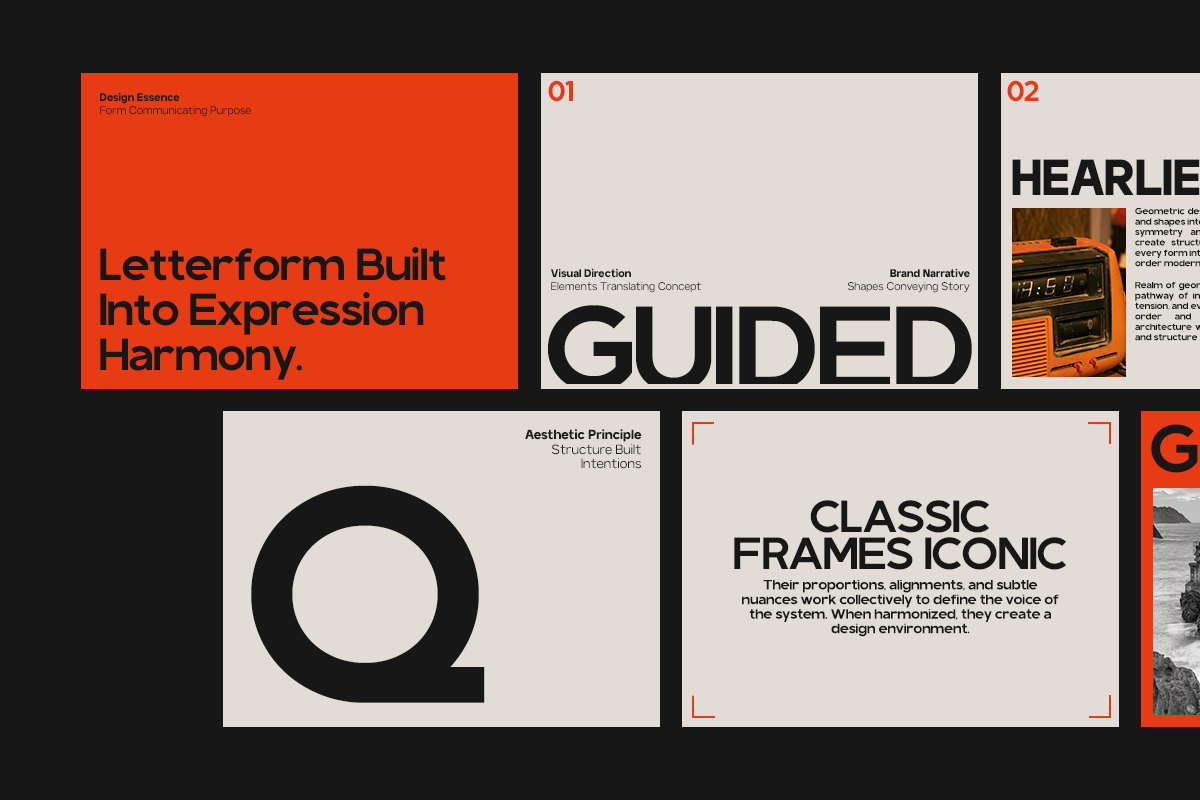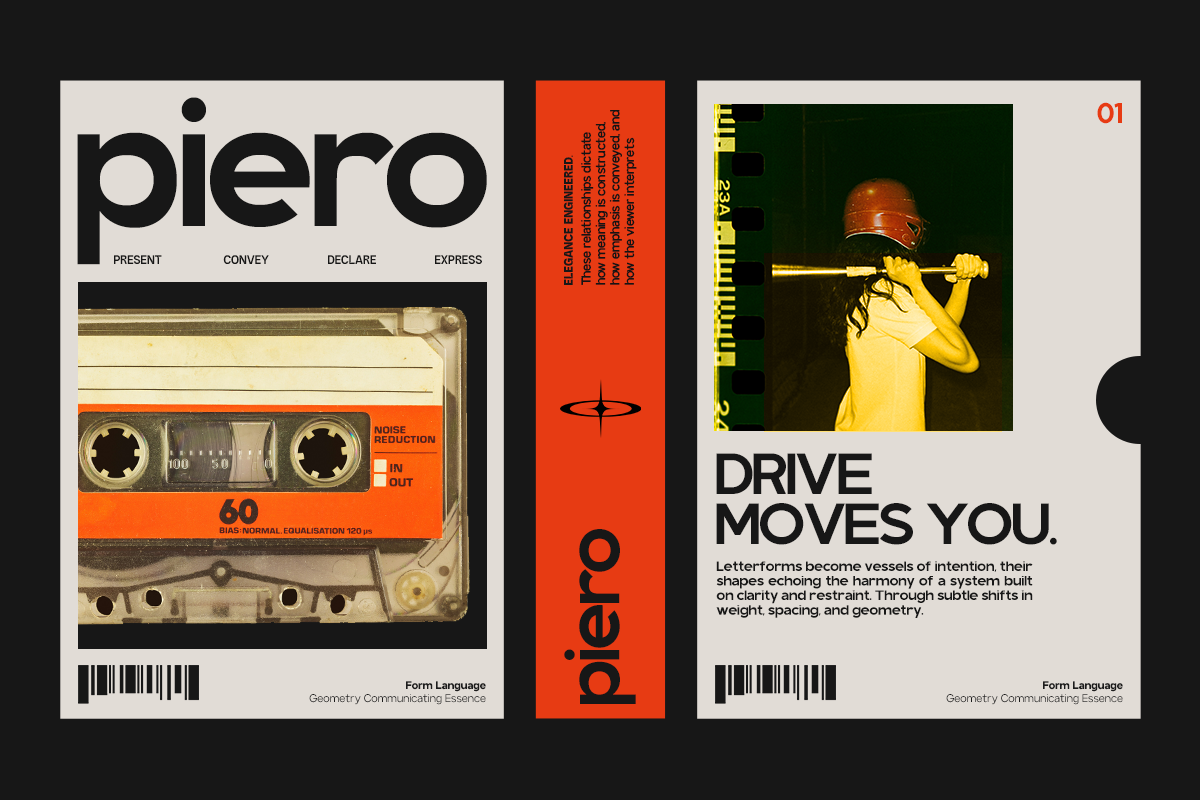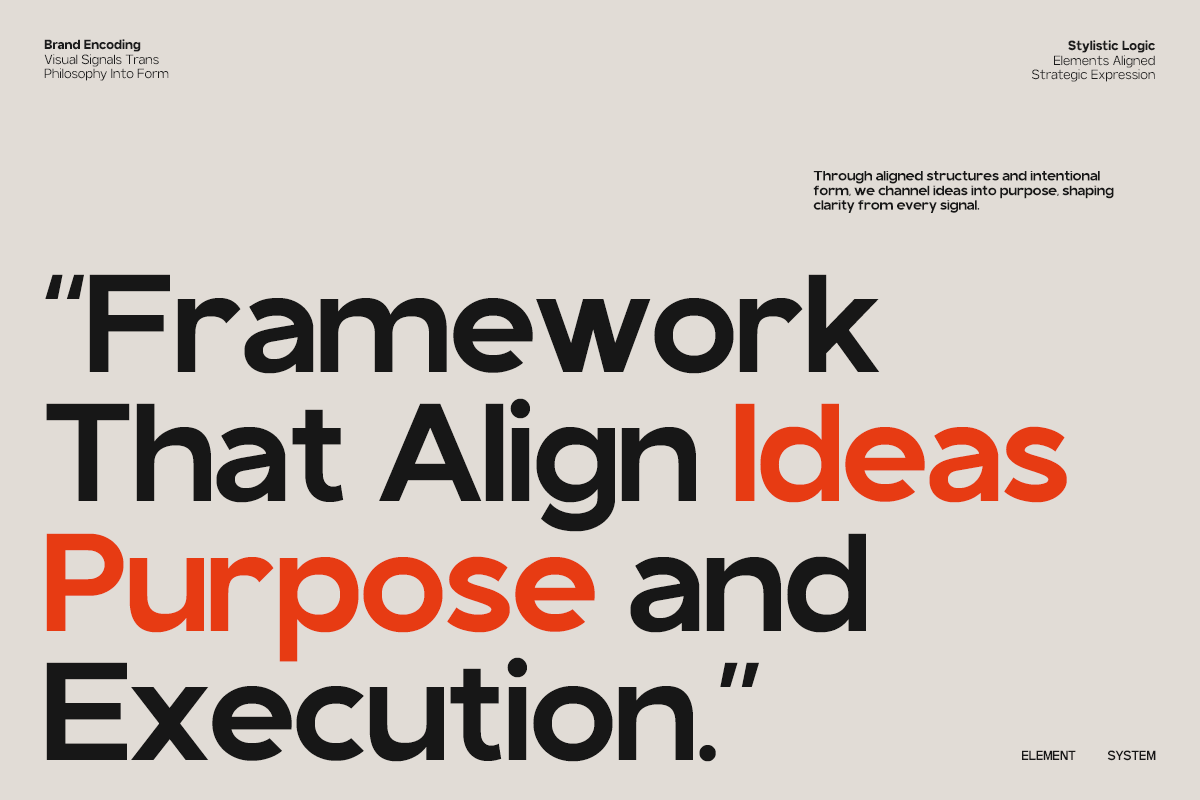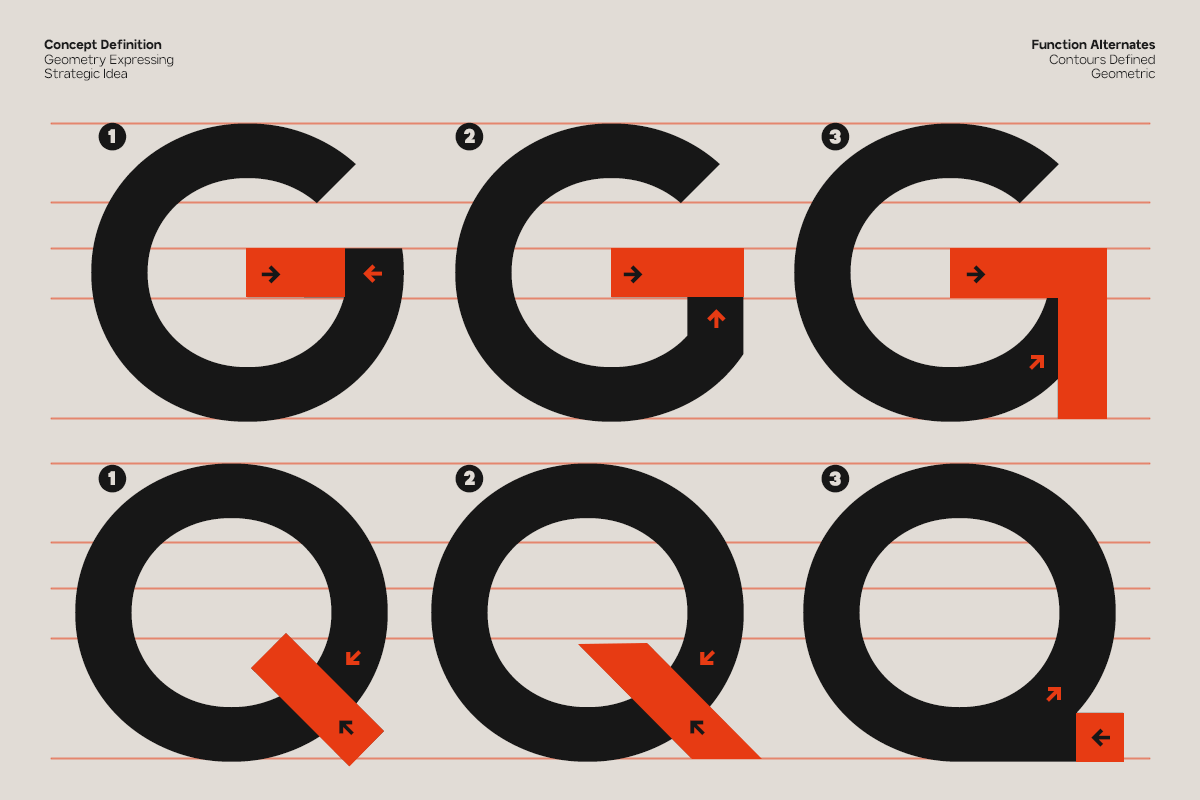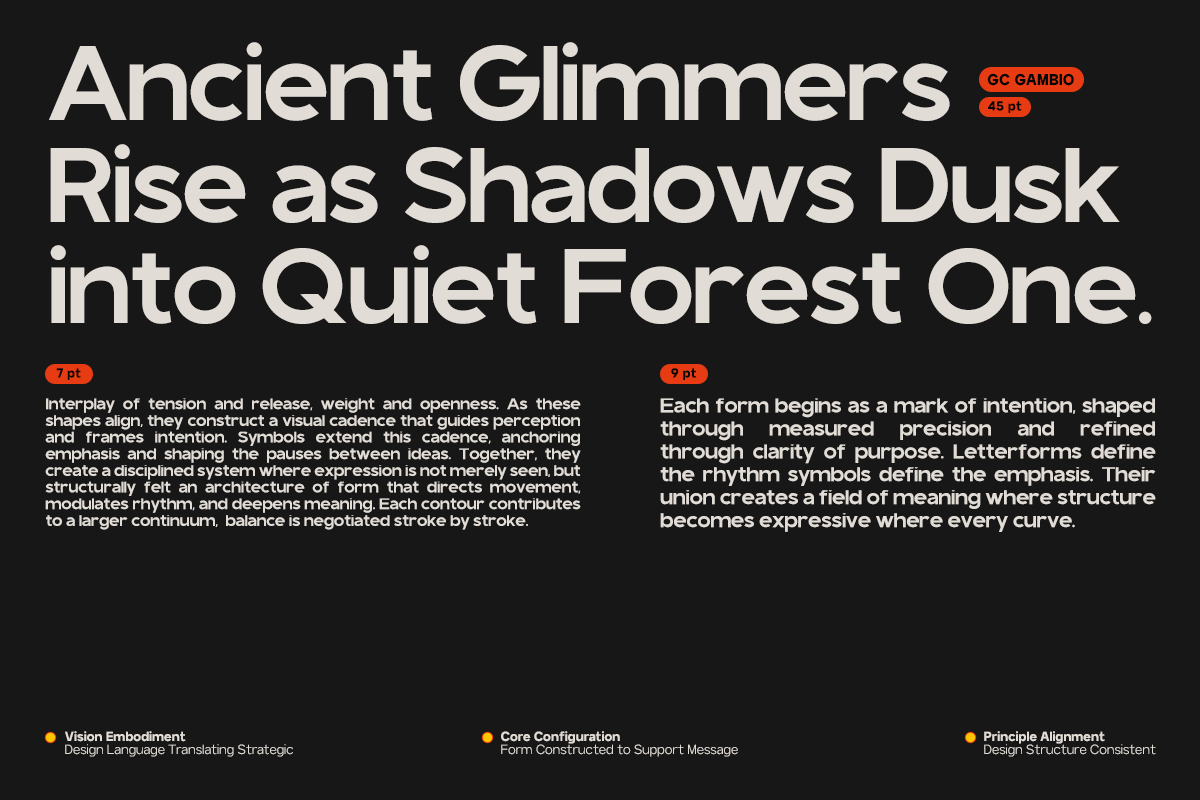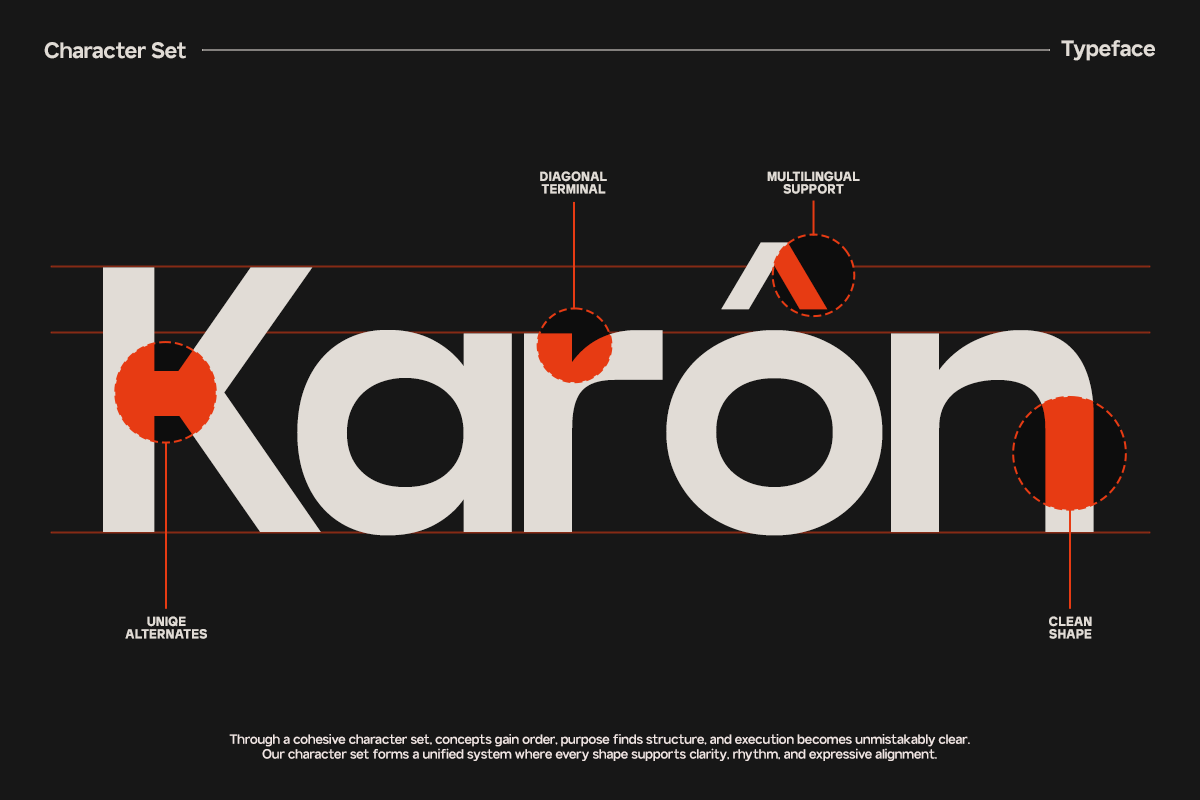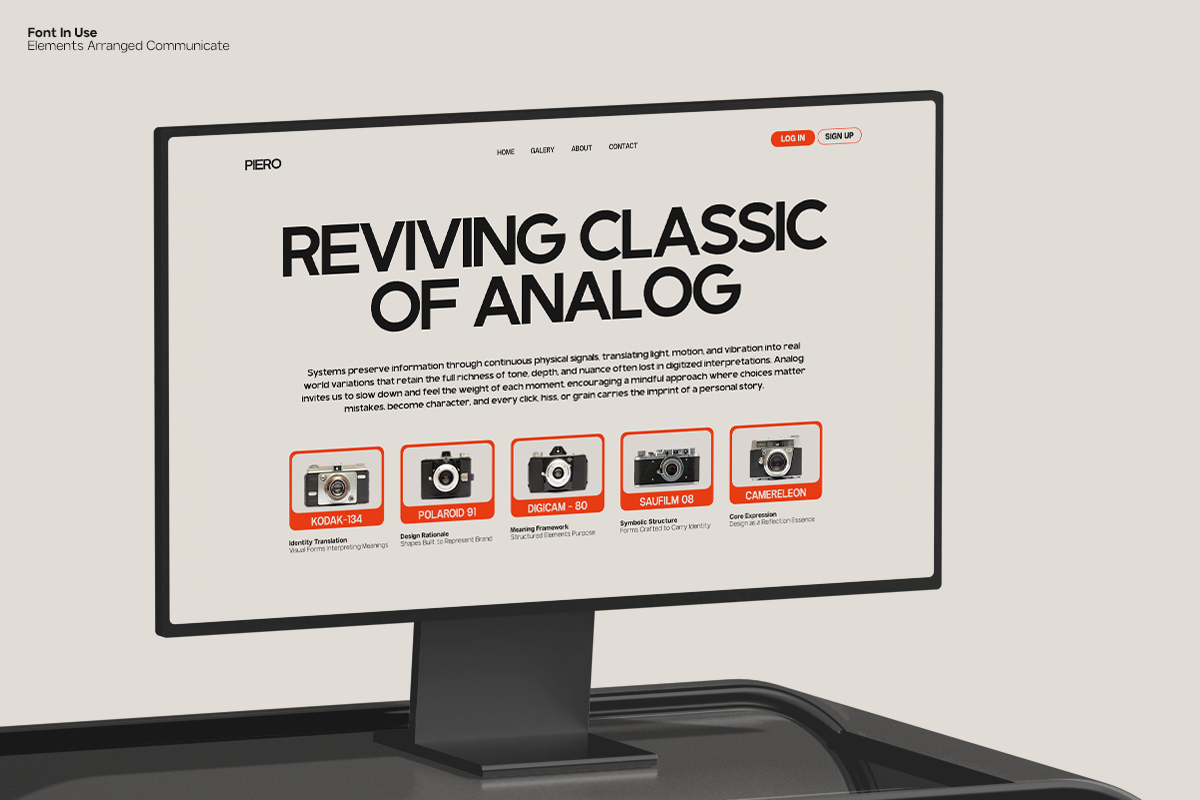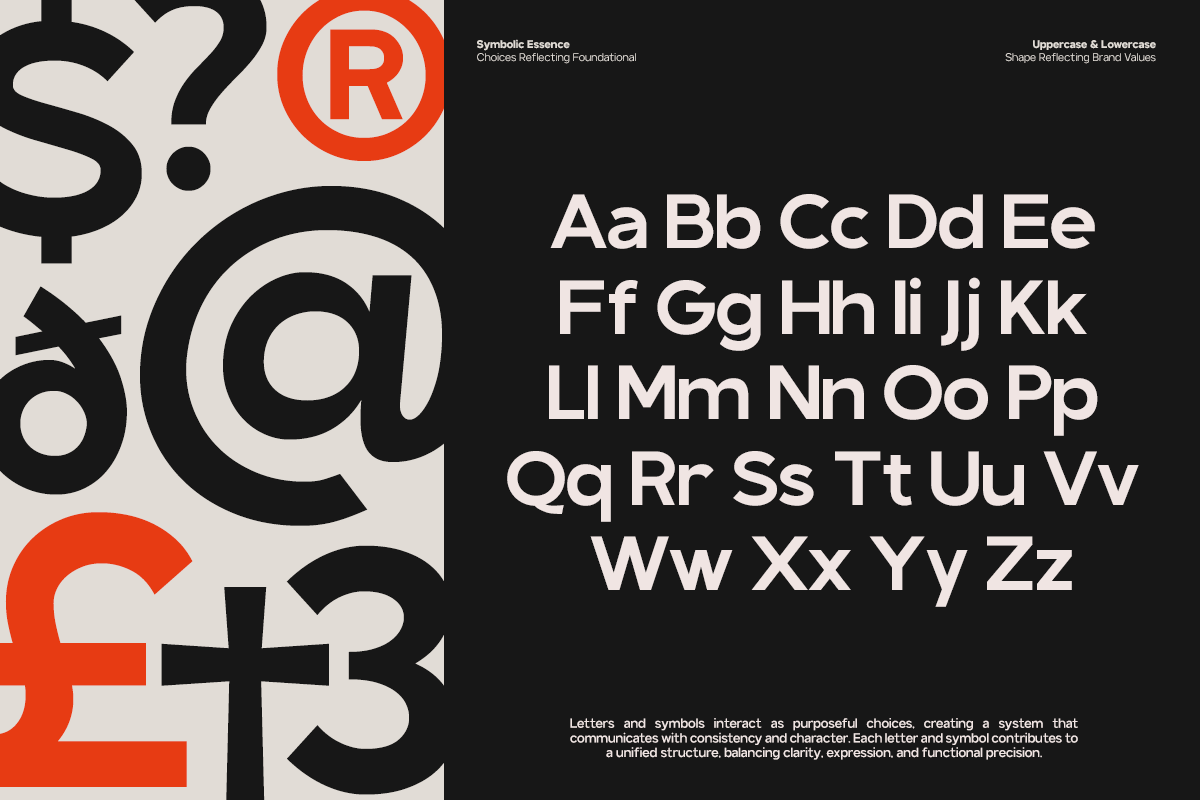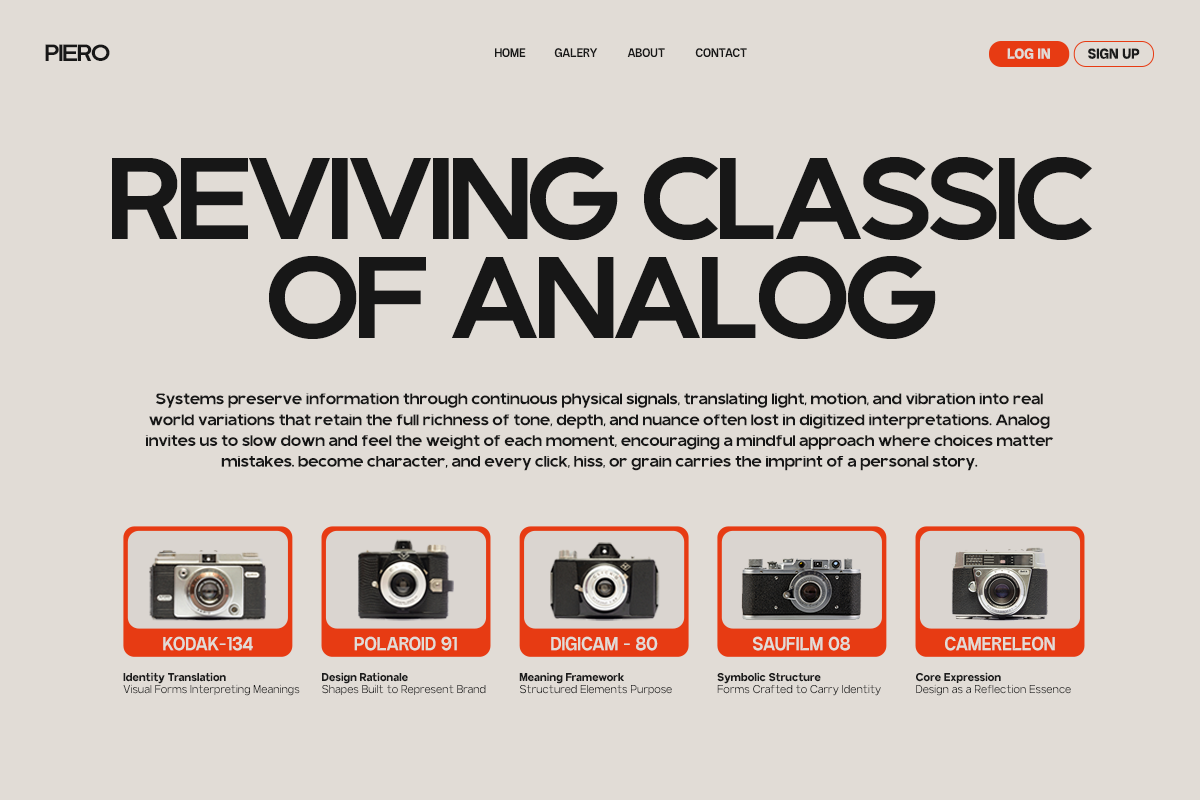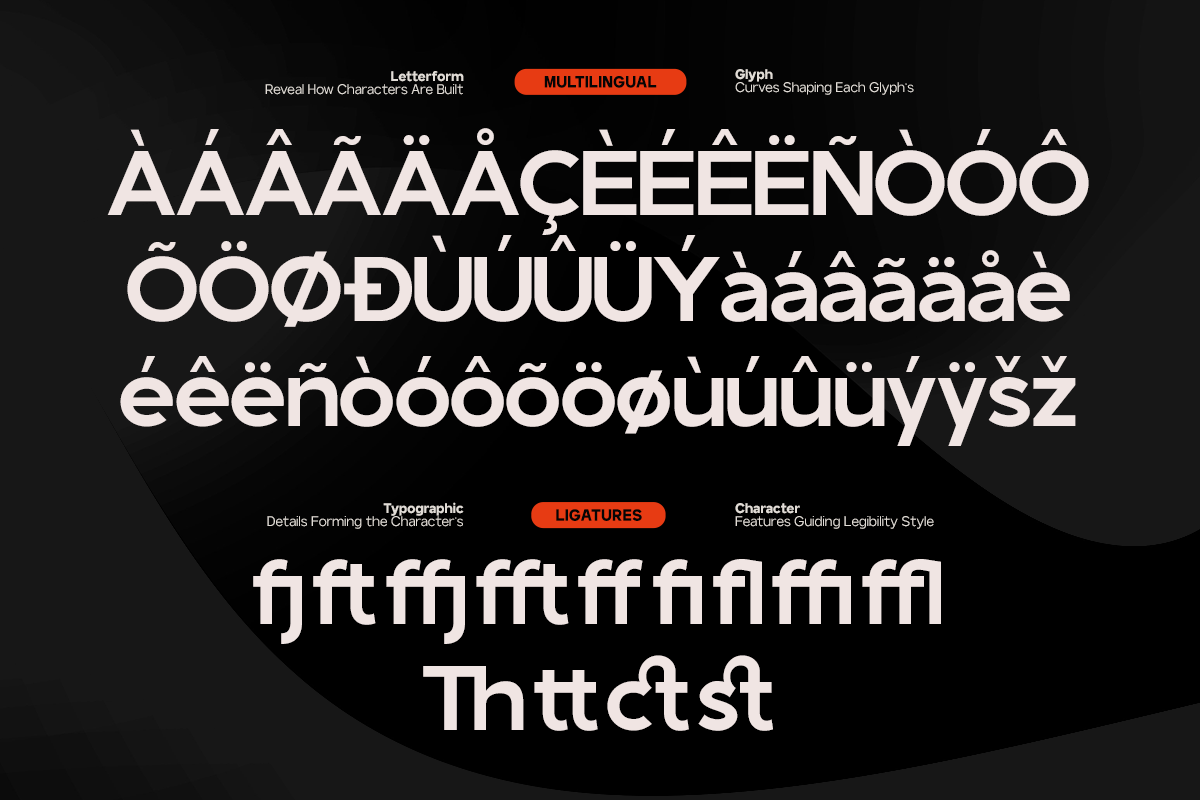
GC Gambio - Modern Sans Grotesque
GC Gambio – Modern Sans Grotesque is a clean and contemporary sans serif font designed for clarity, readability, and modern visual communication. Built on classic grotesque principles with refined proportions, GC Gambio delivers a neutral yet professional tone suitable for a wide range of design applications.
This modern sans serif font is ideal for branding, logo design, editorial layouts, user interface design, web design, posters, and minimalist visual identities. Its simple construction and balanced spacing ensure consistent performance across both digital and print media, making it a reliable choice for designers seeking a clean and functional typeface.
GC Gambio is not a font family and not a variable font, allowing for straightforward usage and easy integration into design workflows. With well-crafted letterforms and essential typographic features, it supports modern typography needs while maintaining clarity and visual balance.
- Uppercase & Lowercase Characters
- Modern Sans Grotesque Style
Enhance your typography with GC Gambio, a modern sans serif font designed for clean design, professional branding, and contemporary digital projects.